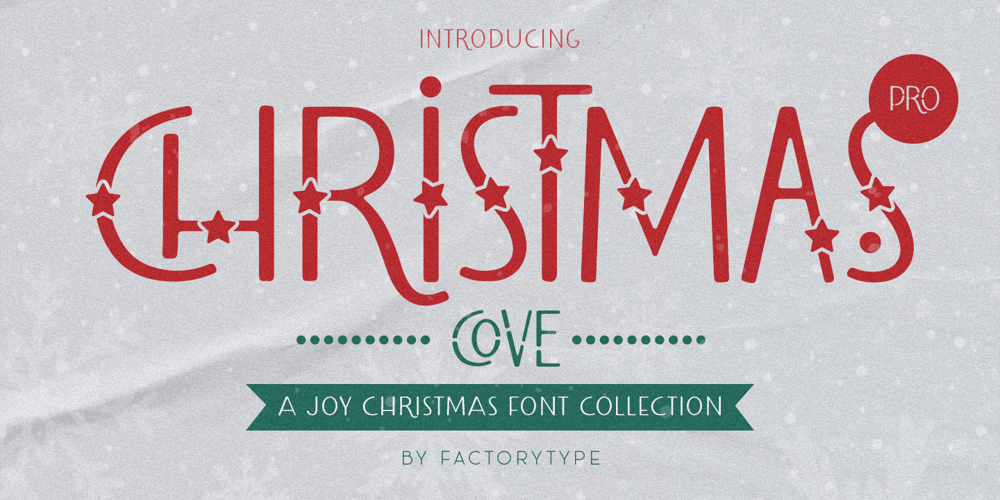
Christmas Cove Font Family was designed by Wahyu Rahmawan and published by Factory738. Christmas Cove contains 10 styles and family package options. When the air becomes crisply chilly and we start thinking of festive projects in time for Christmas, it’s time to celebrate.Christmas Cove, A classic Christmas typeface for sleigh rides and carol singing. Included are all of the necessary elements, such as numbers, punctuation, and multilingual letters. These ligatures will come in useful no matter what your imagination conjures up. 10 Styles Basic Latin A-Z and a-z Numerals & Punctuation Stylistic Ligatures Multilingual Support for ä ö ü Ä Ö Ü … Free updates and feature additions Thanks for looking, and I hope you enjoy it.